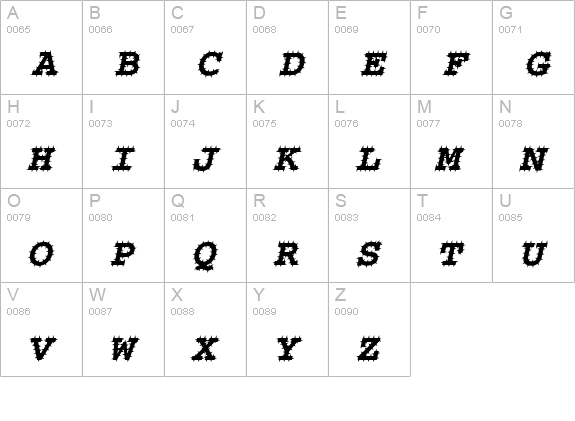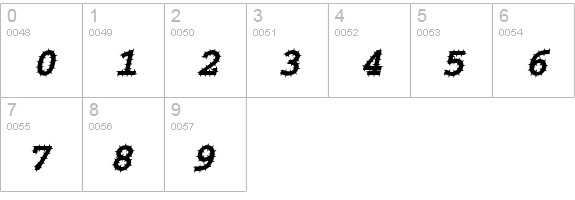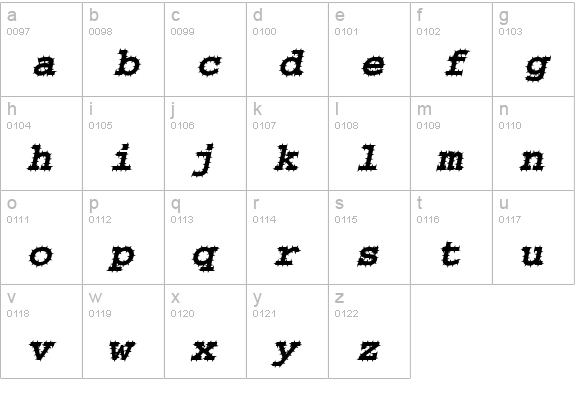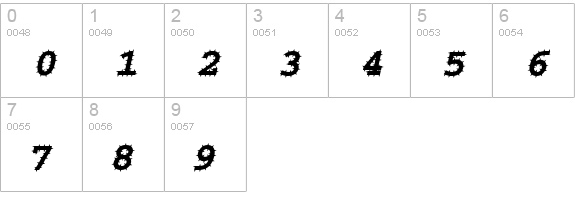
ChiselSpiked Italic Font Details
ChiselSpiked Italic is a distinctive, italic variant in the ChiselSpiked typeface family \xE2\x80\x94 well suited to design and typography projects.
Introducing ChiselSpiked Italic font - a bold and dynamic typeface that exudes a sense of strength and modernity. With its sharp edges and unique styling, ChiselSpiked Italic is perfect for making a statement in your designs. This versatile font is ideal for a variety of projects, from branding to headlines, adding a touch of edginess and sophistication. And the best part? ChiselSpiked Italic is available for free download at FontsMarket.com. So you can easily incorporate this striking font into your projects without breaking the bank. Don't miss out on this opportunity to elevate your designs with the captivating ChiselSpiked Italic font. Download it today and start creating impactful visuals that stand out from the crowd.